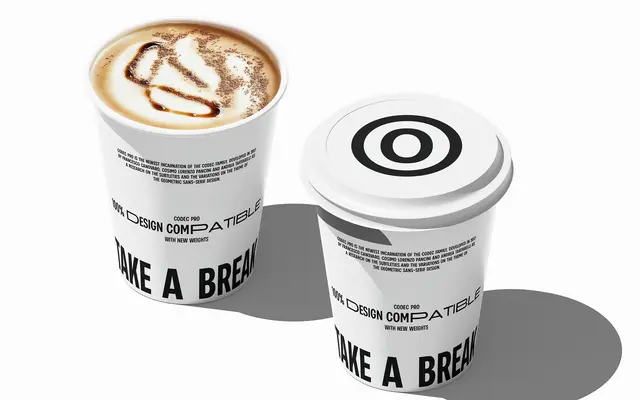
Codec Pro Narrows
Zetafonts · Francesco Canovaro, Cosimo Lorenzo Pancini, Andrea Tartarelli, Mario De Libero · 2017
Three condensed subfamilies extending the Codec Pro geometric sans system across Narrow, Condensed and Compressed widths, each carrying all eleven weights and full Latin, Cyrillic and Greek coverage.
A width expansion of Zetafonts' Codec Pro family, adding Narrow, Condensed and Compressed cuts to the original geometric sans system first designed in 2017. All three subfamilies run the full eleven-weight range from Thin to Fat and share the same 1,269-glyph set with support for 218 languages. Stylistic sets allow switching between strict geometric cuts and more open, humanist-influenced shapes, making the family serviceable across branding, editorial, UI and motion design contexts.
Zetafonts describe Codec Pro as strictly geometric in construction, with circular forms and precise proportions throughout. The narrow subfamilies maintain this geometric rigour across three compressed widths.